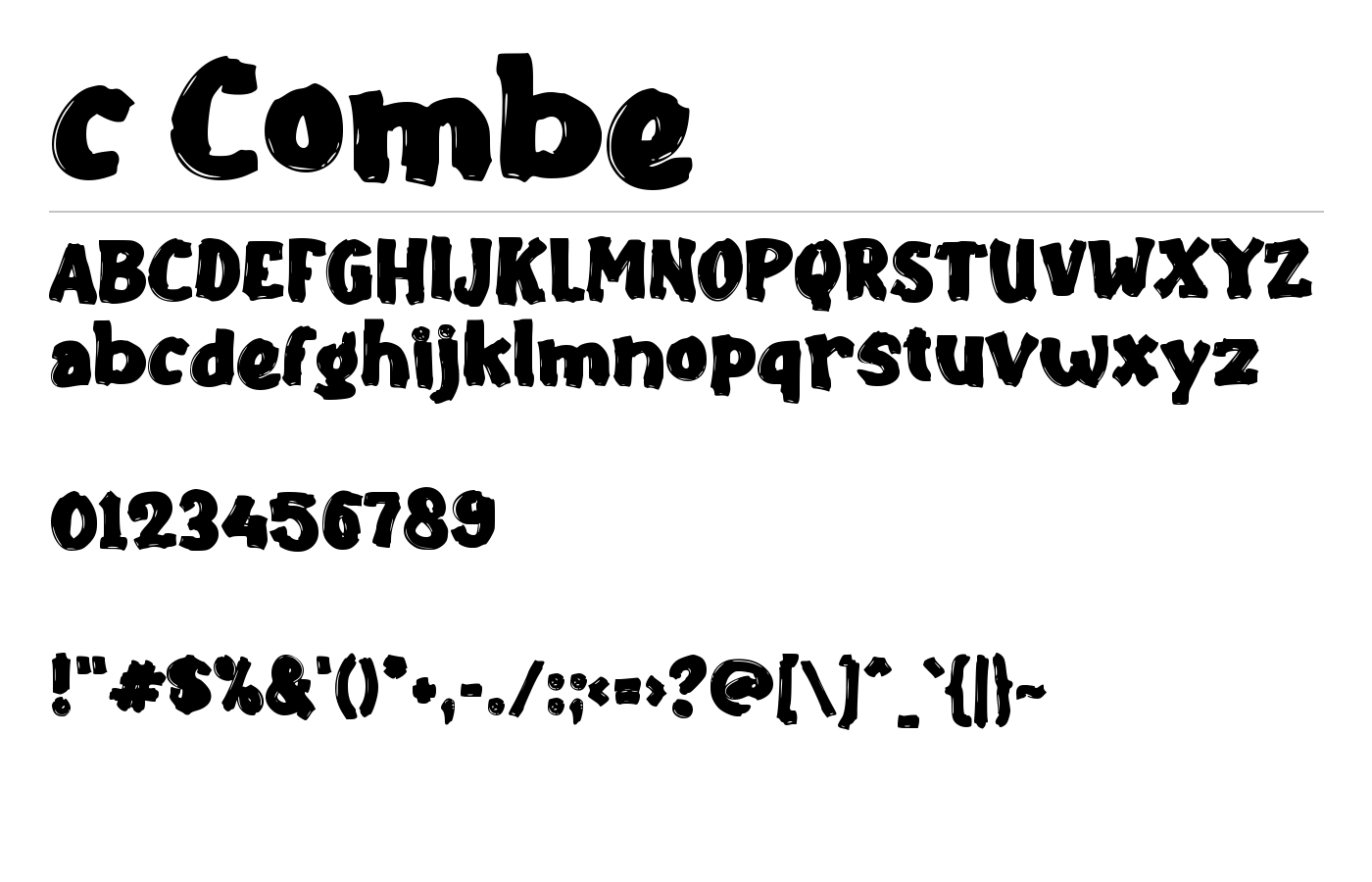
Combe is a bold, playful sans-serif font with a hand-drawn, brushstroke style that gives it a lively and informal personality. Its chunky, uneven shapes and high x-height make it highly visible and perfect for eye-catching headlines, posters, or branding that aims to convey creativity and fun. This font works best in casual, youthful contexts where a unique, expressive touch is desired.
c Combe Font
About c Combe Font